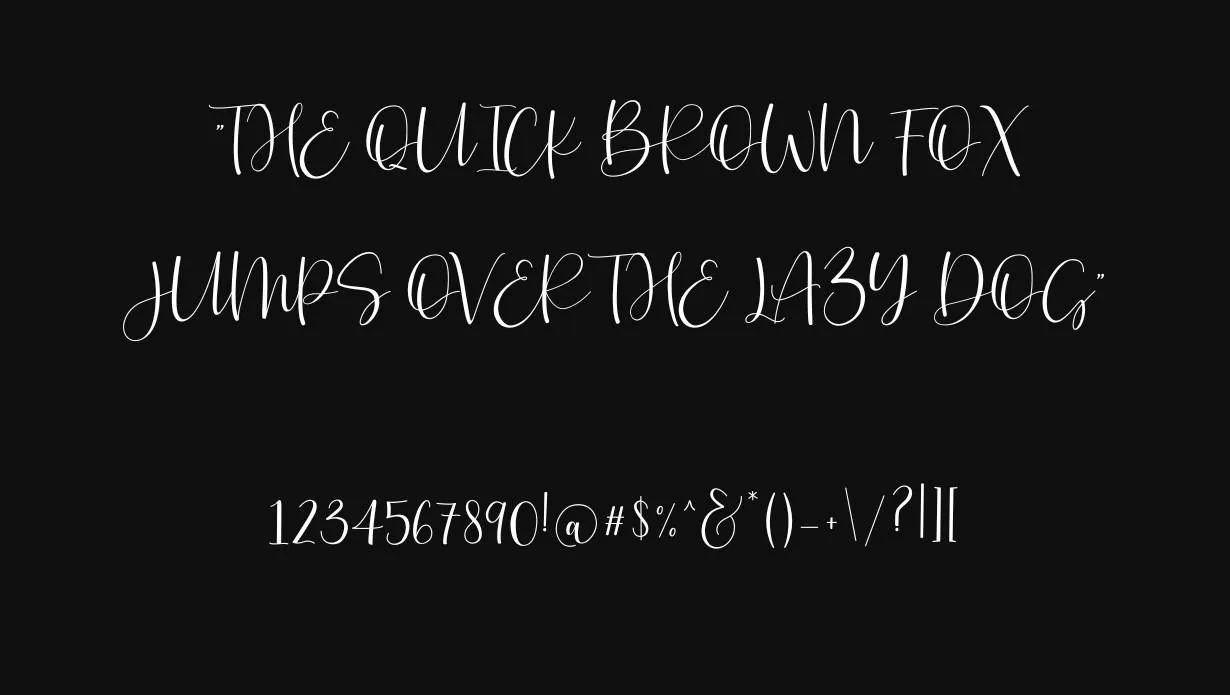
Just Love Calligraphy Script Font conveys warmth and affection with its flowing and romantic script.
It’s perfect for love letters, wedding invitations, and any heartfelt message you want to share.
The script style adds a touch of love and tenderness to your designs.
Just Love Calligraphy Script Font Family